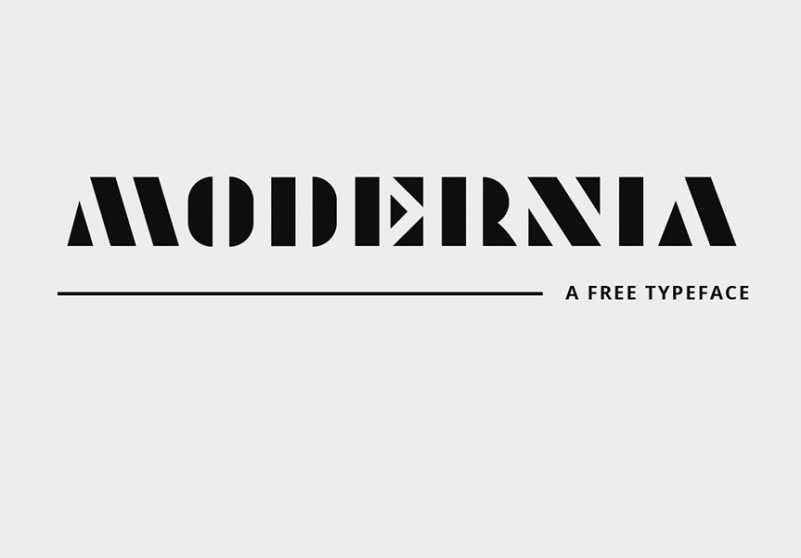
Modernia Typeface
Thank you for looking Modernia Font. This is a bold font with both of modern and vintage touch. It’s a unique and creative design of an alien language that bears some similarities to our own. This typeface has been passionately handcrafted to give you an alien language. Inspired by sci-fi books, this font is perfect for your next project, especially if you want to give a futuristic and alien feel to your work.